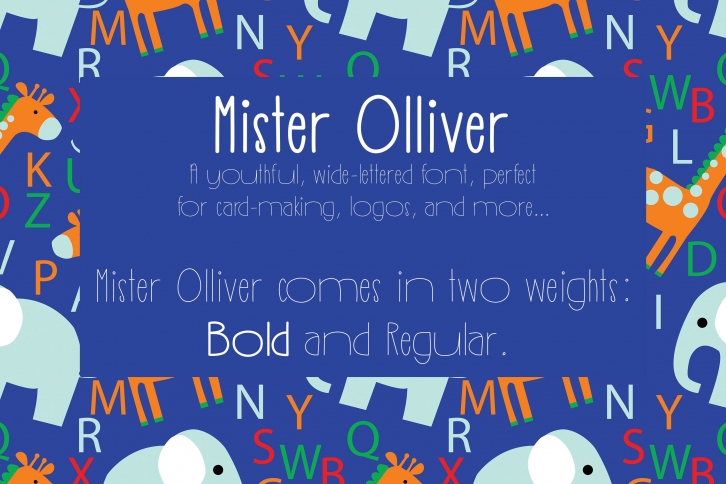
Mister Olliver is a trendy and unique font with an authentic style. It was designed by Sunkissed Minimalist Co and it's a great choice for creative people who need such a font. It was released on December 21, 2018 and the file size is 2.36 MB. Mister Olliver will add an organic vibe to any design idea!